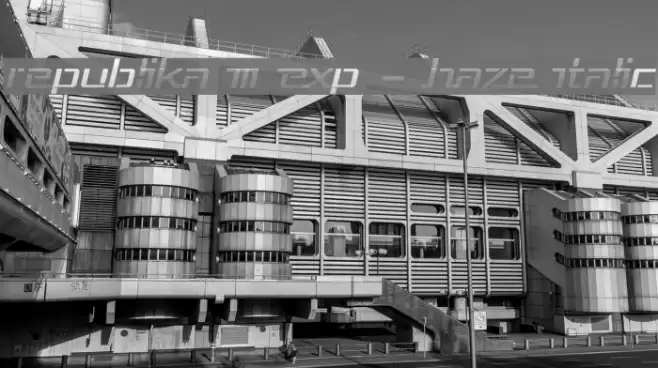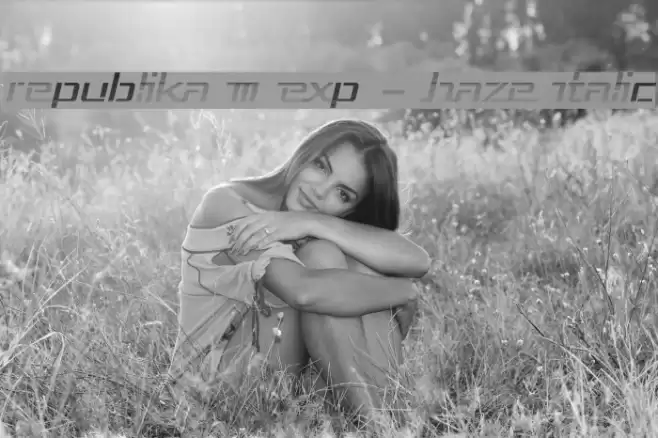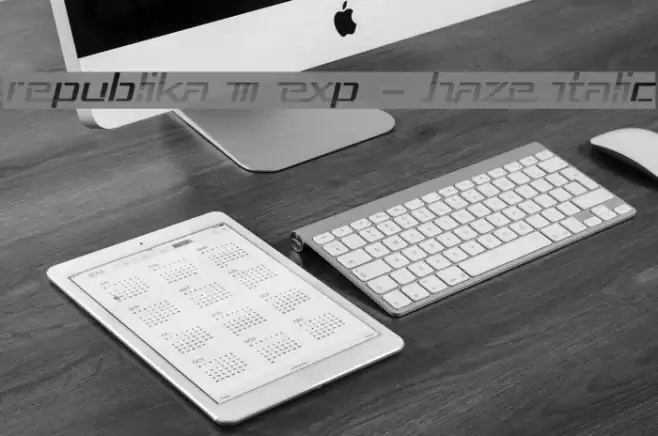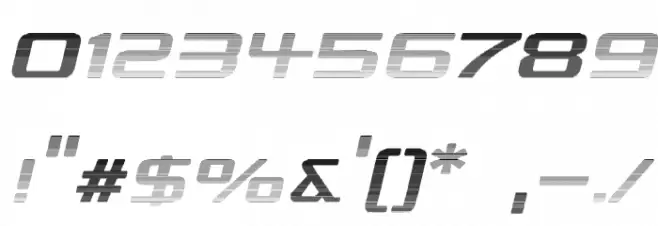
Republika III Exp - Haze Italic Font
Republika III Exp - Haze Italic Description
This font features a futuristic and sleek design with a distinct italic slant, giving it a dynamic and modern appearance. The characters are constructed with a geometric precision, incorporating sharp angles and clean lines that create a sense of movement and speed. The use of varying stroke thicknesses adds depth and a three-dimensional effect, enhancing its visual appeal. The font's unique style is further emphasized by its expanded width, which provides a bold and commanding presence. The character spacing is tight, contributing to its compact and cohesive look. This font is ideal for projects that require a contemporary and cutting-edge aesthetic.
A futuristic, italic font with geometric precision and dynamic style from Uncategorized fonts.
- Proposed Projects: Ideal for technology branding, sci-fi movie posters, video game titles, and modern advertising campaigns.
- Width: Expanded
- Character Spacing: Tight
- Overall Style: Futuristic